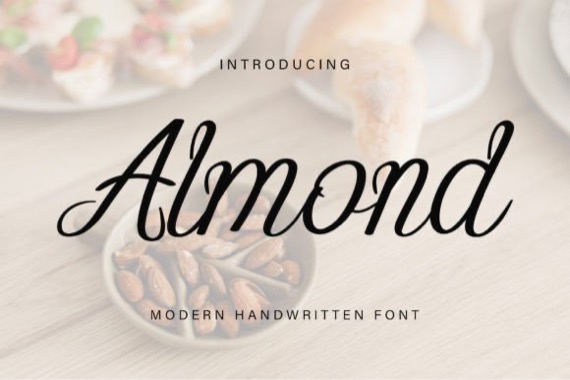
Introducing our latest typeface Almond Handwritten Script Font! It’s a cute handwritten font with a fun and quirky personality. Its irregular and playful letterforms create a sense of whimsy and individuality, making it perfect for designs that require a touch of uniqueness. Its natural, handwritten style adds a charming and personal feel to any project.
Almond Handwritten Script Font